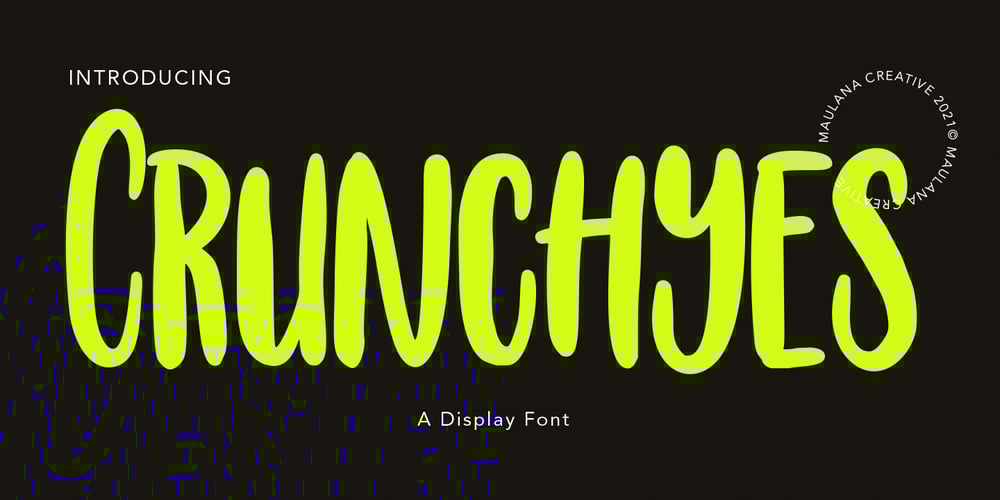
Crunchyes Font Family was designed by Gilang Maulana and published by Maulana Creative. Crunchyes contains 1 styles and family package options. Crunchyes is a casual handwritten font. With rough stroke, Condensed and fun character with a bit of ligatures. To give you an extra creative work. Crunchyes font support multilingual more than 100+ language. This font is good for logo design, Social media, Movie Titles, Books Titles, a short text even a long text letter and good for your secondary text font with sans or serif. Make a stunning work with Crunchyes font. Cheers, MaulanaCreative